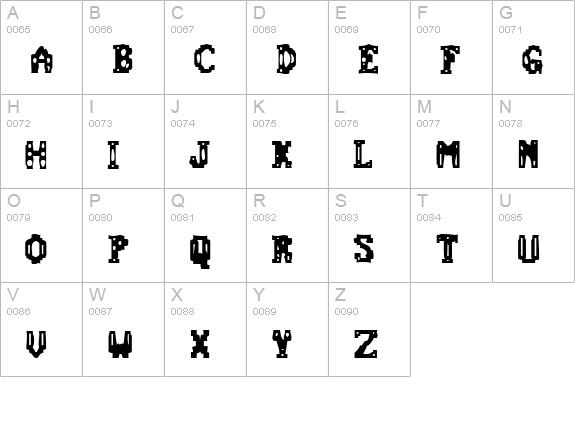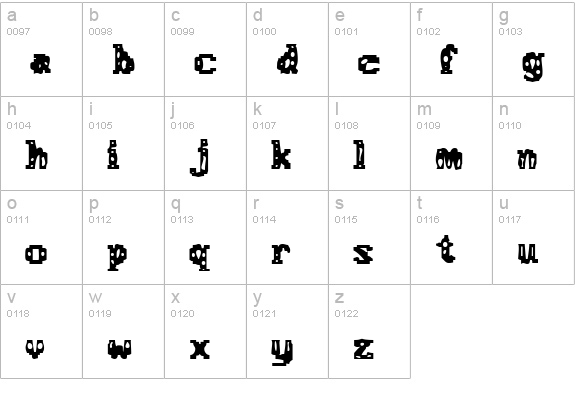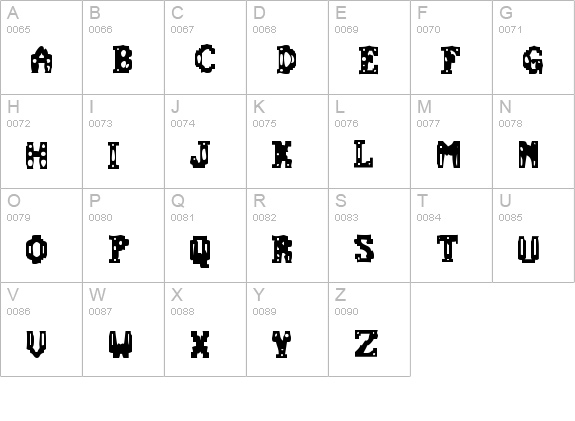
Introducing Chemical Gus font, a striking and modern typeface that exudes an edgy and contemporary vibe. With its unique blend of sharp angles and sleek curves, this font is perfect for creating eye-catching designs that demand attention. Chemical Gus font is versatile and can be used for a wide range of projects, from branding and packaging to posters and social media graphics. Its bold and futuristic appearance makes it ideal for projects that require a modern touch. The best part? Chemical Gus font is completely free to download at FontsMarket.com. So whether you're a designer looking to add a fresh new font to your collection or a hobbyist wanting to spice up your projects, this font is the perfect choice. Download Chemical Gus font today and unleash your creativity!